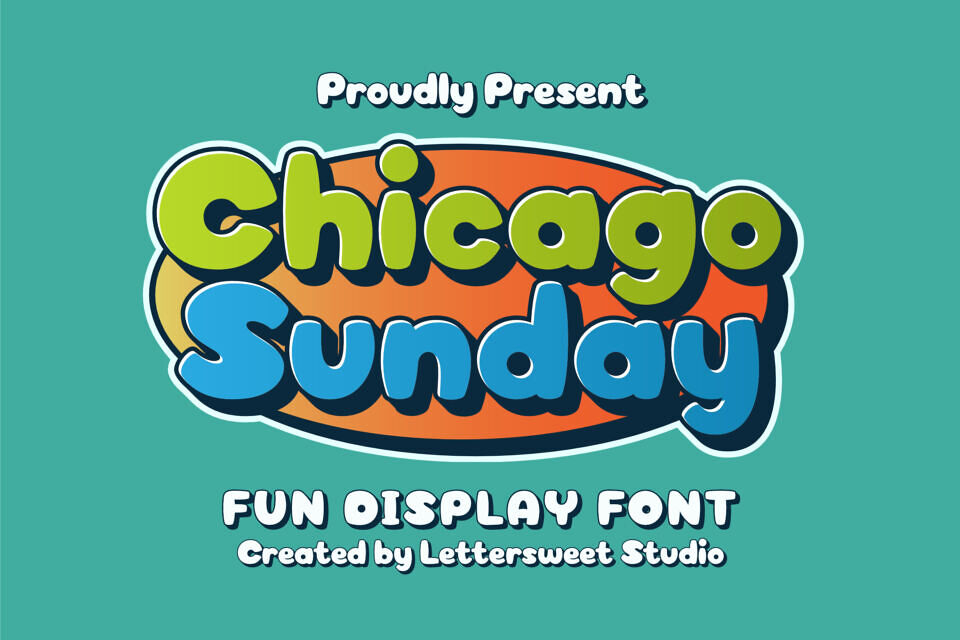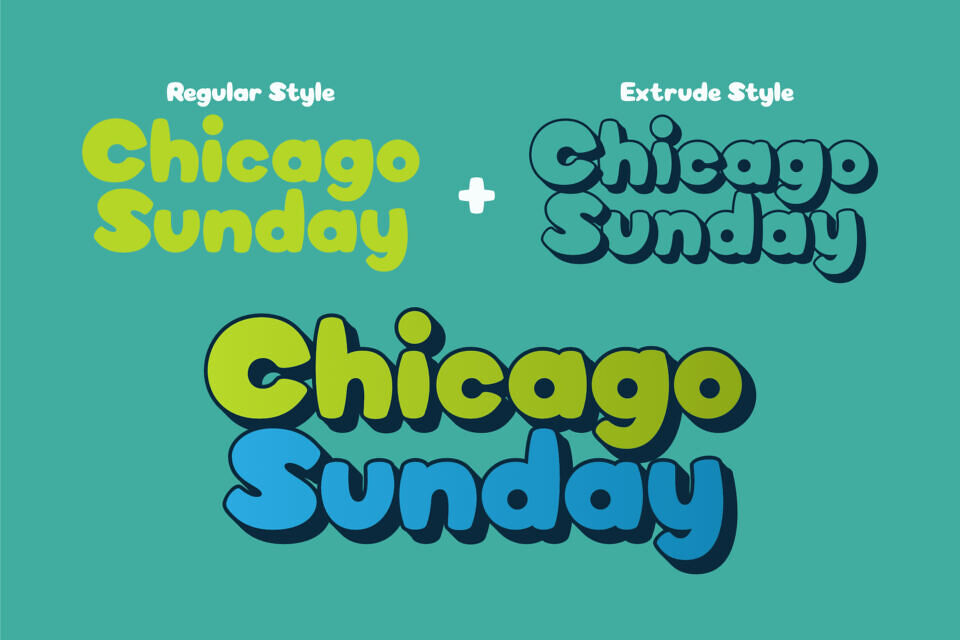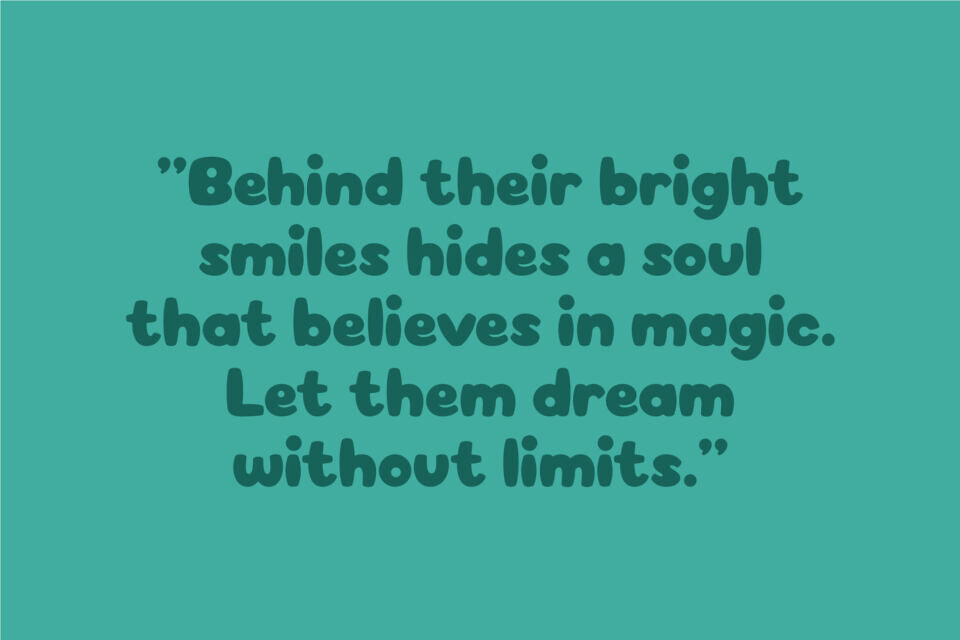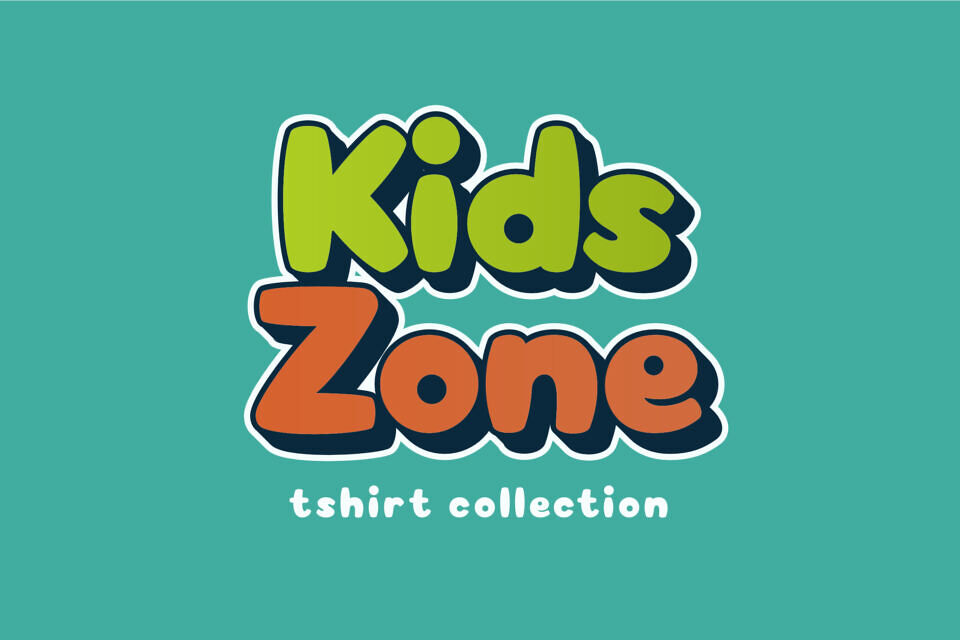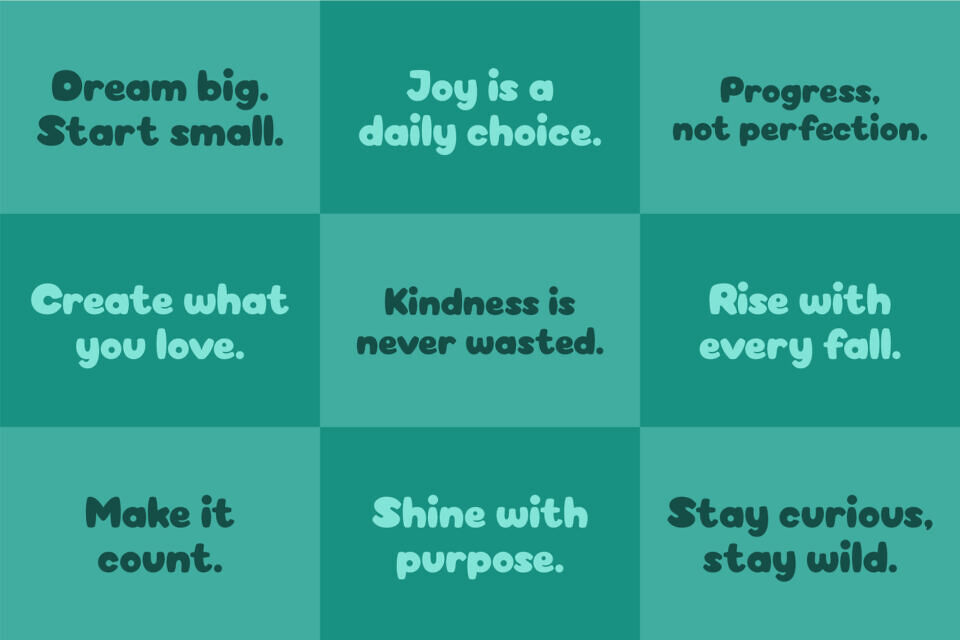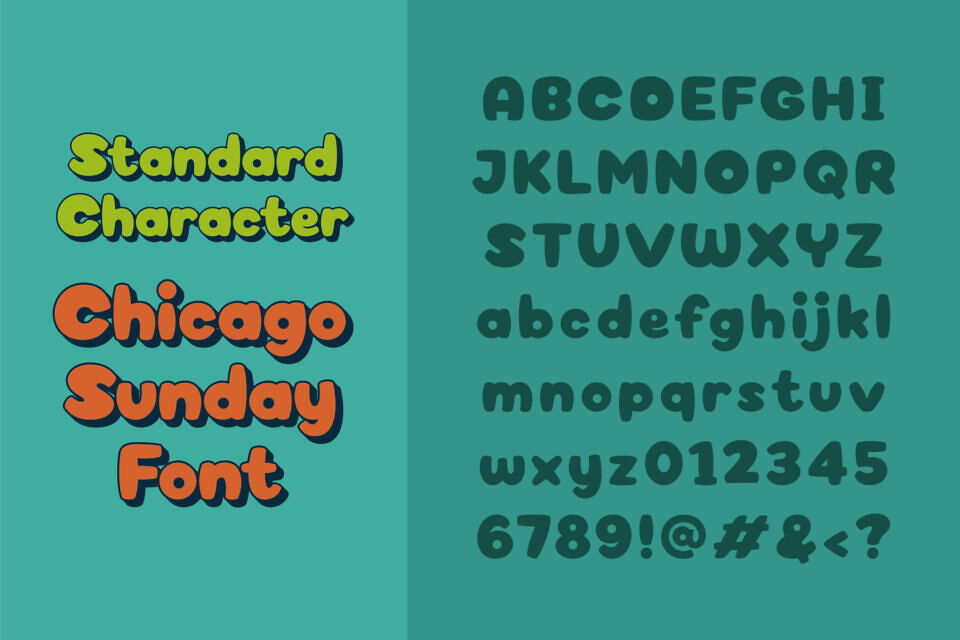
Chicago Sunday Font
Say hello to Chicago Sunday, a cheerful and bold display font designed to bring joy to your creative projects! With its chunky curves, vibrant style, and cartoon-inspired look, this font is perfect for anything that needs a dose of fun and positivity.
Whether you’re working on a kids’ product, playful logo, comic book, YouTube thumbnail, greeting card, or educational material, Chicago Sunday will instantly grab attention and add a lively personality to your design.